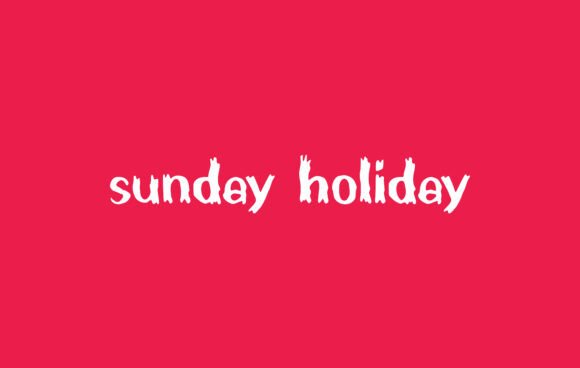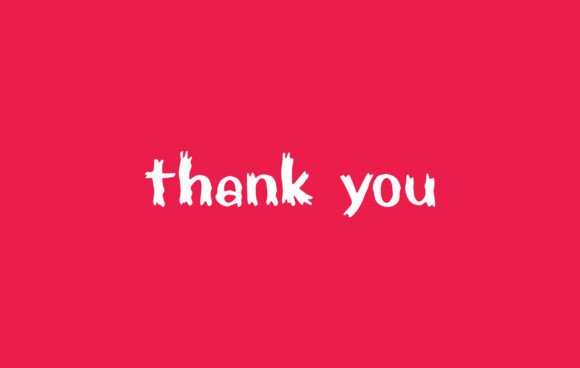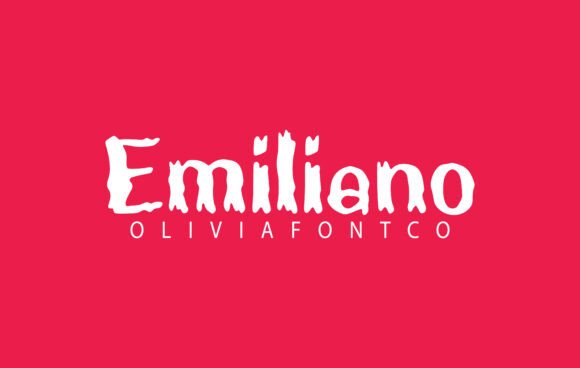
Introducing Emiliano Font: The Ultimate Handwritten Font for Creative Designs
Are you tired of using the same old fonts for your designs? Look no further! Emiliano font is here to revolutionize your creative projects with its authentic handwritten style and romantic touch. This expertly designed font is sure to become a true favorite among designers and crafters, and for good reason. With its exceptional legibility and versatility, Emiliano font is the perfect choice for a wide range of applications, from magazine headlines to wedding invitations.
The Characteristics of Emiliano Font
So, what makes Emiliano font so special? For starters, its authentic handwritten style gives it a unique and personal touch that’s hard to find in digital fonts. The romantic flair of this font is perfect for designs that require a touch of elegance and sophistication. Whether you’re working on a branding project, social media graphics, or wedding invitations, Emiliano font is sure to impress.
One of the standout features of Emiliano font is its exceptional legibility. Unlike some handwritten fonts that can be difficult to read, Emiliano font is clear and easy to understand, making it perfect for both title and body text. This means you can use it for a wide range of applications, from large headlines to smaller paragraphs of text.
Uses for Emiliano Font
So, what can you use Emiliano font for? The possibilities are endless! Here are just a few ideas to get you started:
- Magazine headlines: Add a touch of elegance and sophistication to your magazine with Emiliano font.
- Social media graphics: Stand out on social media with eye-catching graphics featuring Emiliano font.
- Branding: Use Emiliano font to create a unique and memorable brand identity.
- Wedding invitations: Make your wedding invitations truly special with Emiliano font.
- Cards: Create beautiful and personalized cards for any occasion with Emiliano font.
Why Designers and Crafters Love Emiliano Font
Designers and crafters are always on the lookout for high-quality fonts that can help them create stunning designs. Emiliano font ticks all the boxes. Here are just a few reasons why designers and crafters love Emiliano font:
- Unique style: Emiliano font has a unique and authentic handwritten style that’s hard to find in digital fonts.
- Exceptional legibility: Emiliano font is clear and easy to understand, making it perfect for both title and body text.
- Versatility: Emiliano font can be used for a wide range of applications, from magazine headlines to wedding invitations.
Tips for Using Emiliano Font
Here are a few tips for getting the most out of Emiliano font:
- Experiment with different sizes: Emiliano font looks great in a variety of sizes, from large headlines to smaller paragraphs of text.
- Pair it with other fonts: Emiliano font pairs well with a range of other fonts, so don’t be afraid to experiment with different combinations.
- Use it for emphasis: Emiliano font is perfect for adding emphasis to certain words or phrases in your designs.
In conclusion, Emiliano font is a game-changer for designers and crafters. With its authentic handwritten style, romantic touch, and exceptional legibility, it’s the perfect choice for a wide range of creative projects. Whether you’re working on a branding project, social media graphics, or wedding invitations, Emiliano font is sure to impress. So why wait? Download Emiliano font today and take your creative ideas to the highest level!